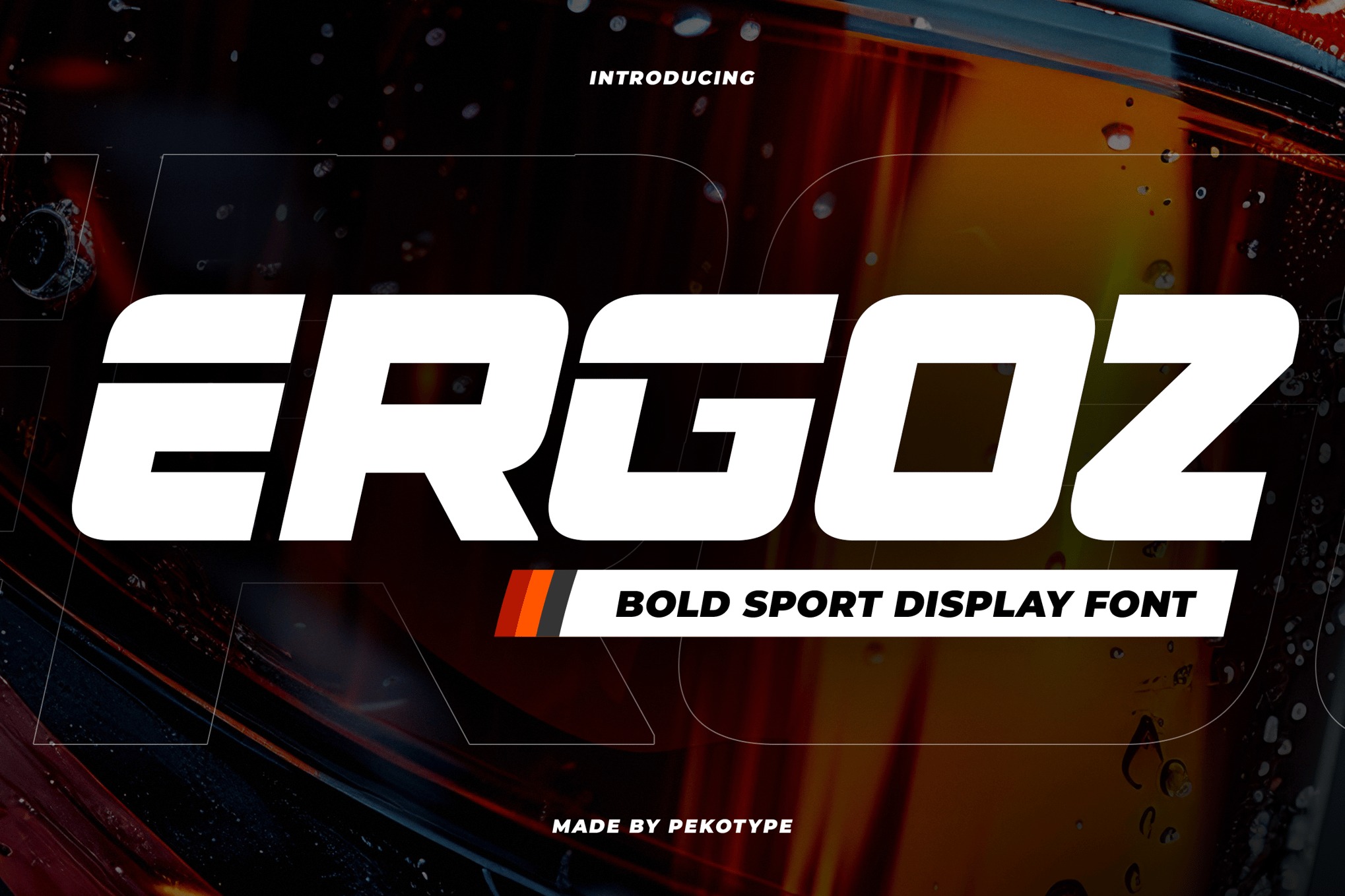
Ergoz – Bold Sport Font
Ergoz – Bold Sport Font is a professionally designed typeface that delivers clarity, structure, and consistent performance across various design applications. Ergoz is a bold modern sport font built for speed, power, and high-impact visuals. Its sharp shapes and forward-leaning style give every design a strong racing feel while staying clean and easy to read.
Perfect for motorsport branding, racing teams, automotive logos, gaming graphics, esports, event posters, product packaging, social media, YouTube thumbnails, banners, headlines, and any project that needs a fast, energetic, and modern display font.